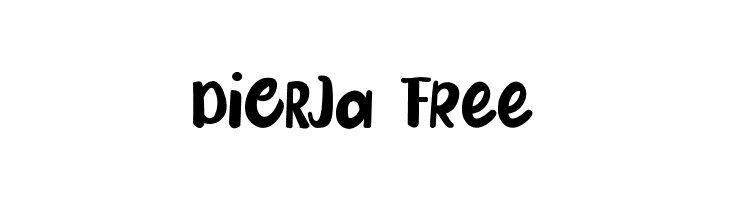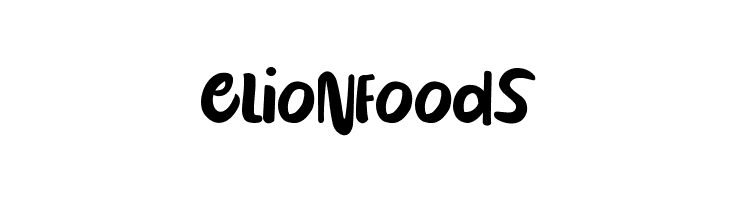
( Fonts by InspiraType )
A playful, rounded handwritten font with a bold and friendly style.
( Fonts by InspiraType )
A playful, rounded handwritten font with a bold presence.